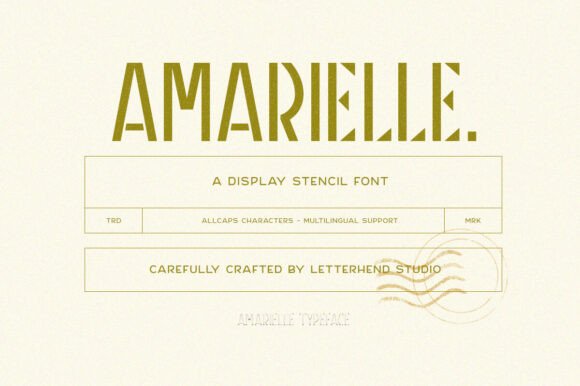
Introducing Amarielle Font: The Bold and Modern Stencil Display Font
In the world of typography, fonts play a crucial role in conveying messages, expressing emotions, and creating visual identities. Among the numerous fonts available, Amarielle font stands out as a bold, modern stencil display font designed for those who dare to stand out. With its sharp edges, industrial aesthetics, and military-inspired precision, this all-caps typeface delivers a strong, commanding presence.
Key Features of Amarielle Font
- Bold and Modern Design: Amarielle font boasts a bold and modern design, making it perfect for attention-grabbing applications.
- Stencil Display Font: Its stencil design gives it a unique, industrial look that’s both rugged and refined.
- All-Caps Typeface: Amarielle is an all-caps font, ensuring that your text makes a strong impact.
- Multilingual Support: The font offers multilingual support, making it versatile for various projects and audiences.
- Industrial Aesthetics: With its sharp edges and industrial feel, Amarielle brings a touch of urban grit to your designs.
Ideal Use Cases for Amarielle Font
Amarielle font is perfect for a variety of design projects that require a strong, commanding presence. Here are some ideal use cases:
- Branding: Use Amarielle to create a bold and memorable brand identity that stands out in the market.
- Posters: Its bold design makes it perfect for posters that need to grab attention quickly.
- Editorial Design: Add a touch of modern elegance to your editorial designs, such as magazines and newspapers.
- Labels: Create eye-catching labels for products, events, or promotions.
- Signage: Amarielle’s industrial aesthetics make it ideal for signage that requires a strong visual impact.
- High-Impact Visuals: Use the font in any high-impact visual project where you want to leave a lasting impression.
Amarielle’s Unique Typographic Style
Amarielle font blends urban grit with contemporary elegance, making it a versatile choice for designers. Its sharp edges and industrial aesthetics give it a rugged feel, while its clean lines and precision ensure a touch of sophistication. This unique combination makes Amarielle suitable for projects that demand a clean yet rugged typographic style.
The font’s military-inspired precision adds to its commanding presence, making it perfect for designs that require authority and strength. Whether you’re working on a branding project, editorial design, or signage, Amarielle’s typographic style ensures that your text stands out and leaves a lasting impression.
Benefits of Using Amarielle Font
- Versatility: Amarielle’s design is versatile, making it suitable for a wide range of projects, from branding to signage.
- Strong Visual Impact: The font’s bold and modern design ensures that your text grabs attention and makes a strong impact.
- Elegance and Grit: Amarielle blends contemporary elegance with urban grit, making it perfect for designs that need to balance sophistication with ruggedness.
- Multilingual Support: The font’s multilingual support makes it ideal for projects with a global audience.
Tips for Effective Use of Amarielle Font
To get the most out of Amarielle font, consider the following tips:
- Pair with Complementary Fonts: Pair Amarielle with simpler fonts to create contrast and highlight key information.
- Use in Large Sizes: For maximum impact, use Amarielle in large sizes, especially for headlines and titles.
- Experiment with Colors: Don’t be afraid to experiment with different colors to find the perfect match for your design.
- Consider Your Audience: Ensure that the bold and modern style of Amarielle aligns with your audience’s preferences and expectations.
Amarielle font is a bold, modern stencil display font designed for those who dare to stand out. With its sharp edges, industrial aesthetics, and military-inspired precision, this all-caps typeface delivers a strong, commanding presence. Perfect for branding, posters, editorial design, labels, signage, and high-impact visuals, Amarielle blends urban grit with contemporary elegance. Its multilingual support and versatility make it ideal for projects that demand a clean yet rugged typographic style.
By incorporating Amarielle into your design projects, you can ensure that your text makes a strong impact and leaves a lasting impression. Whether you’re a designer, marketer, or business owner, Amarielle font is a valuable addition to your typographic arsenal.